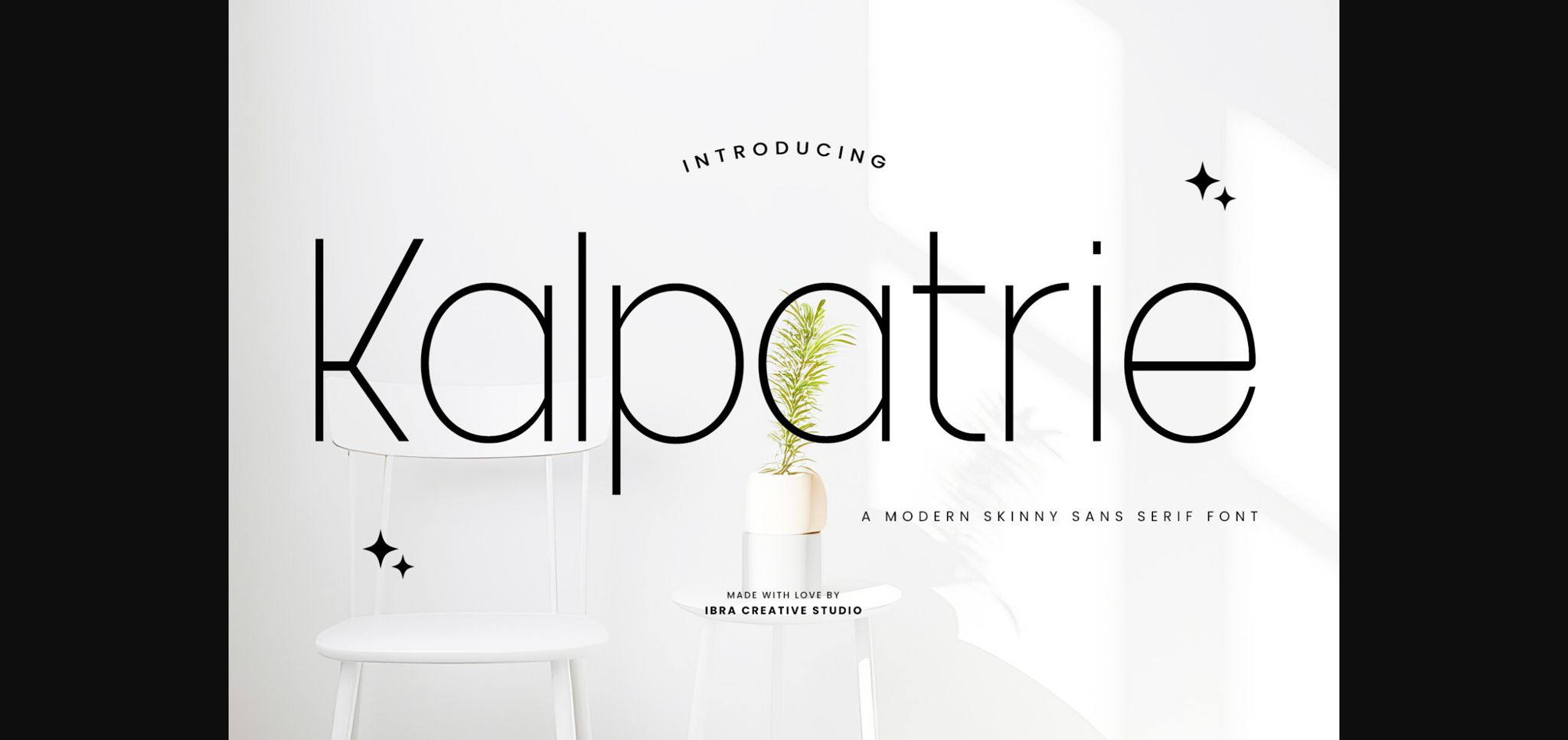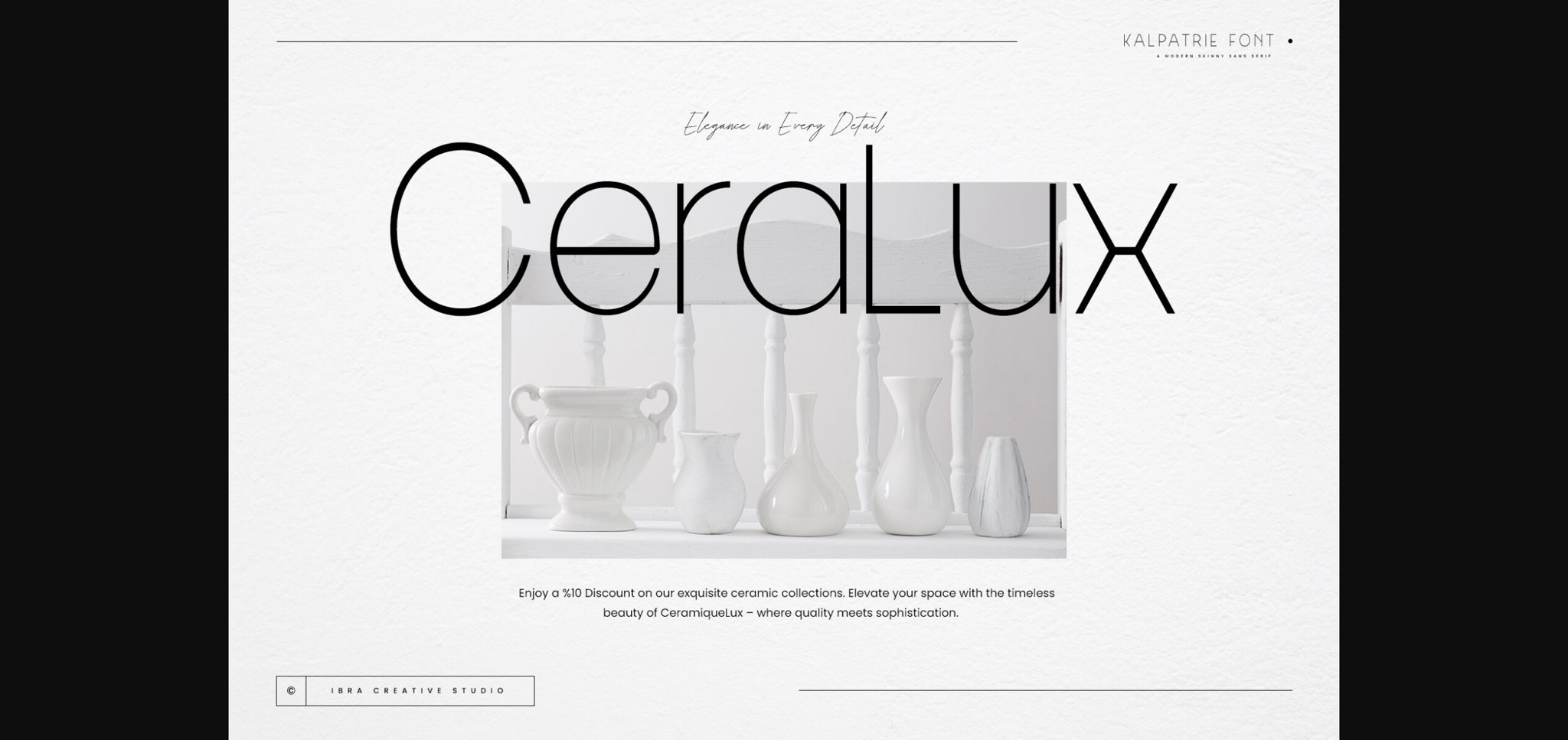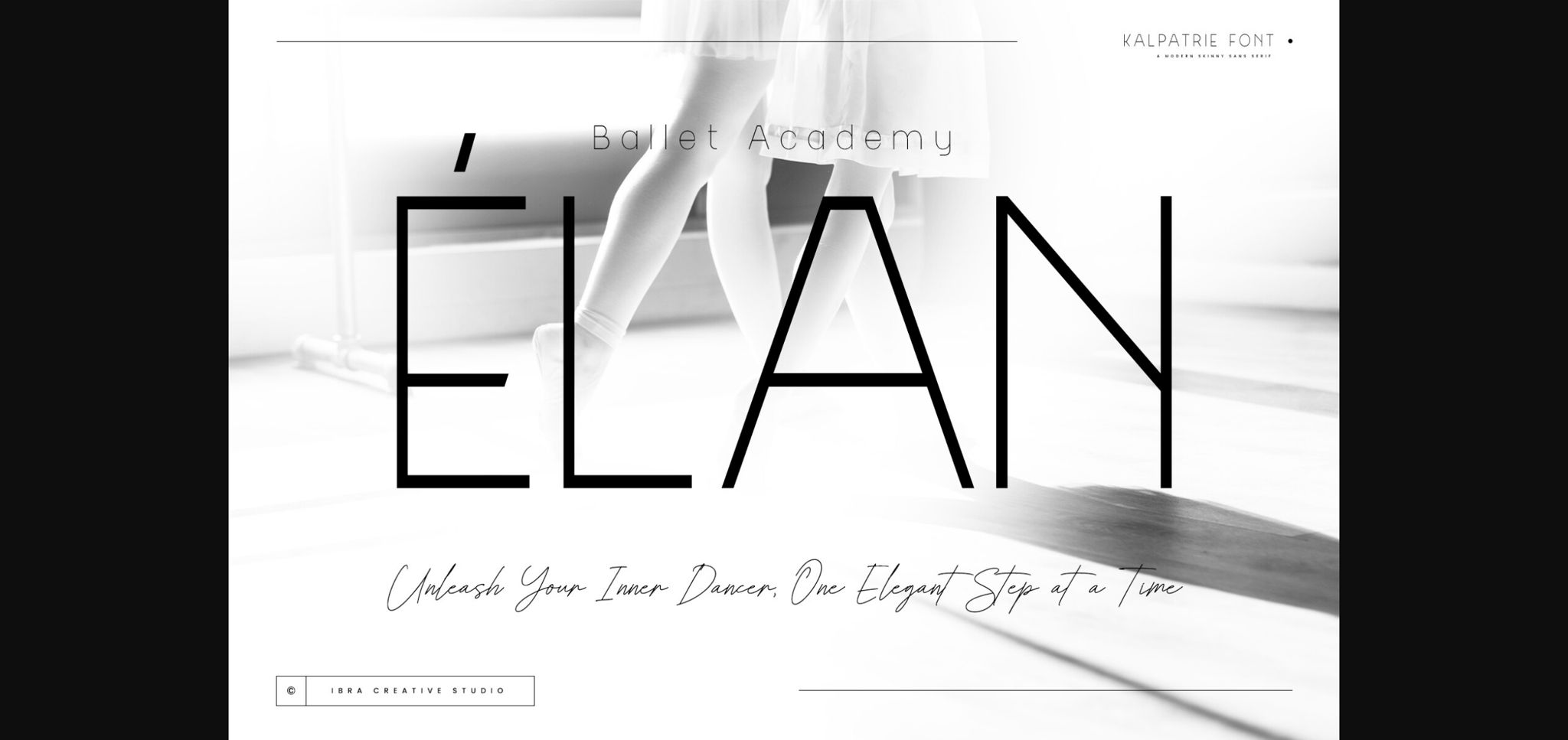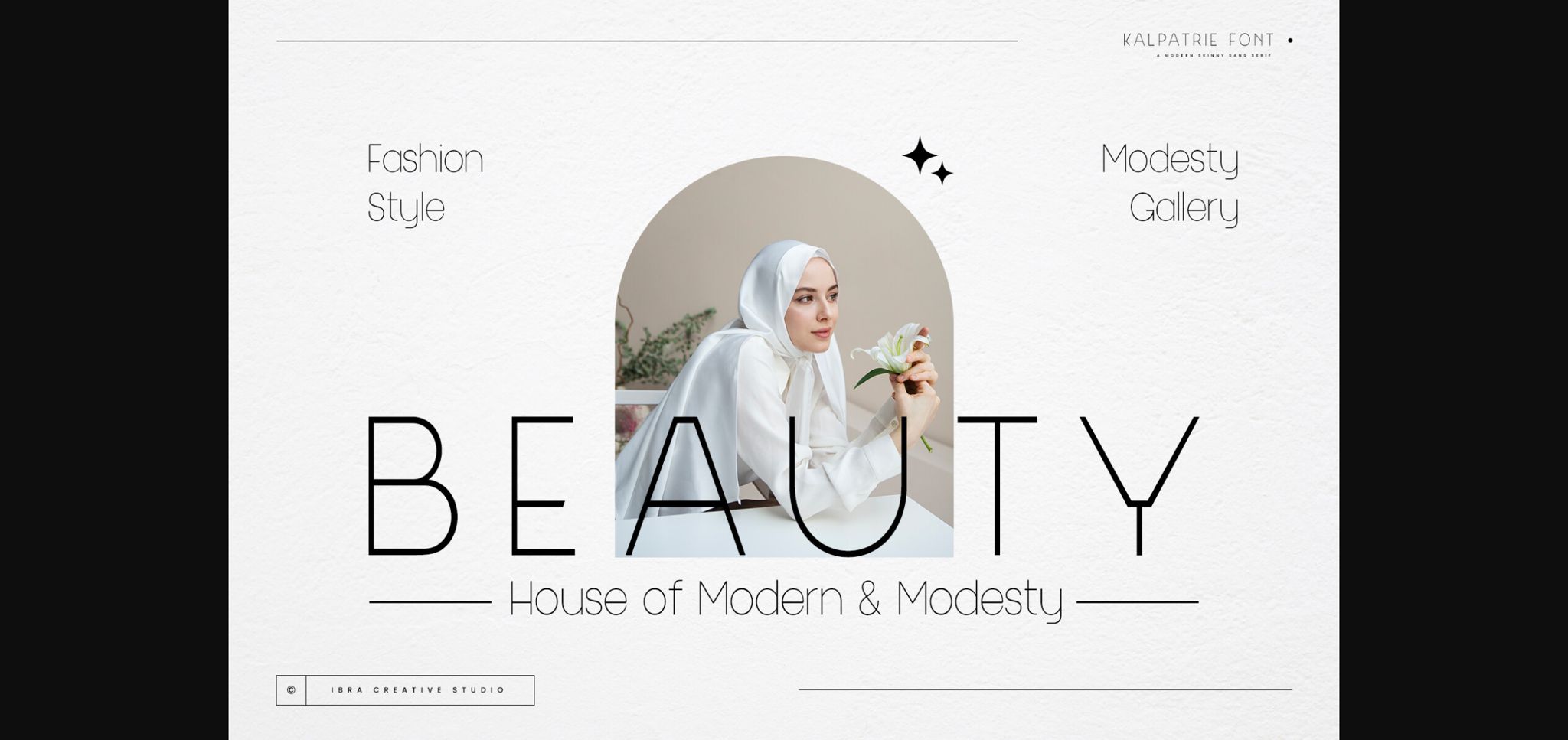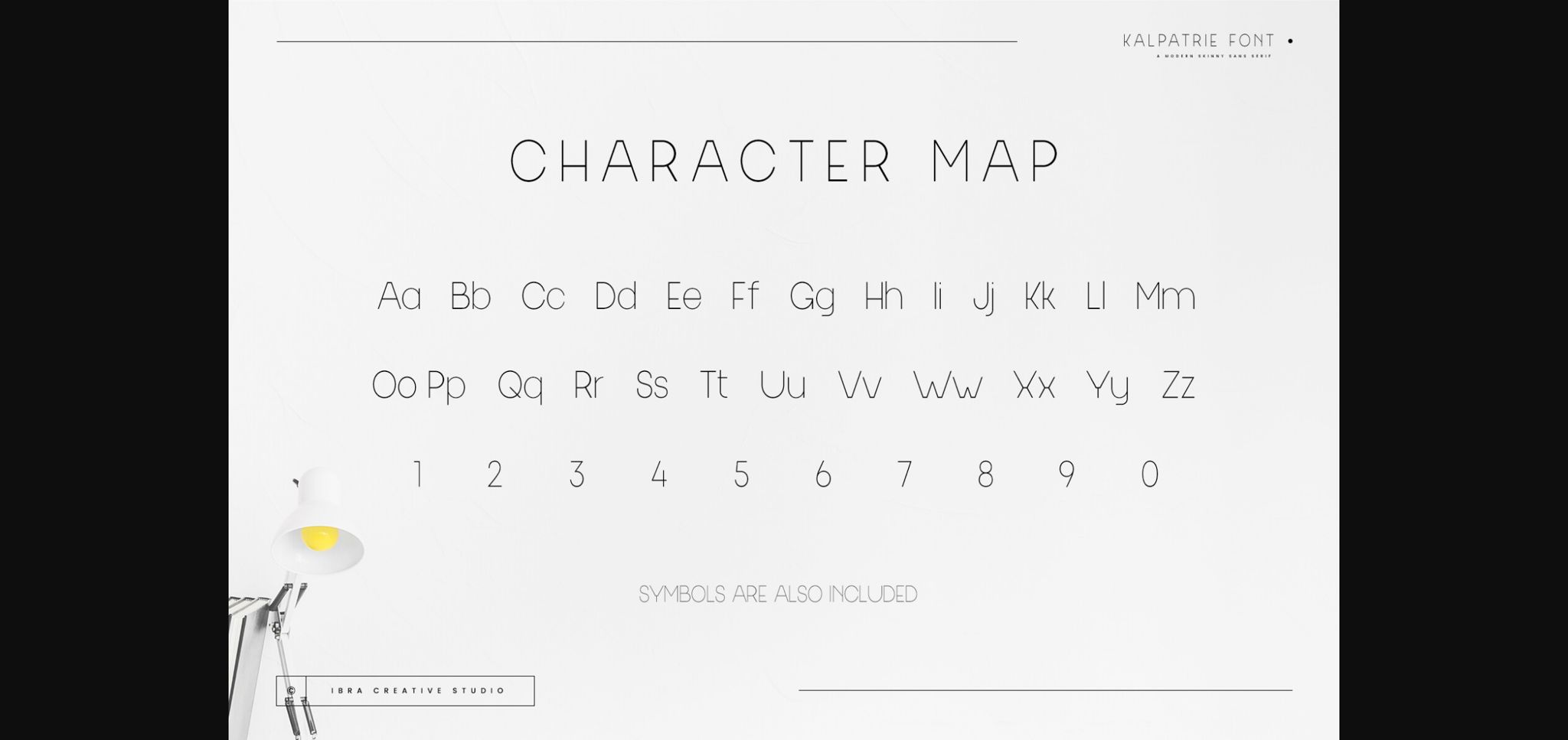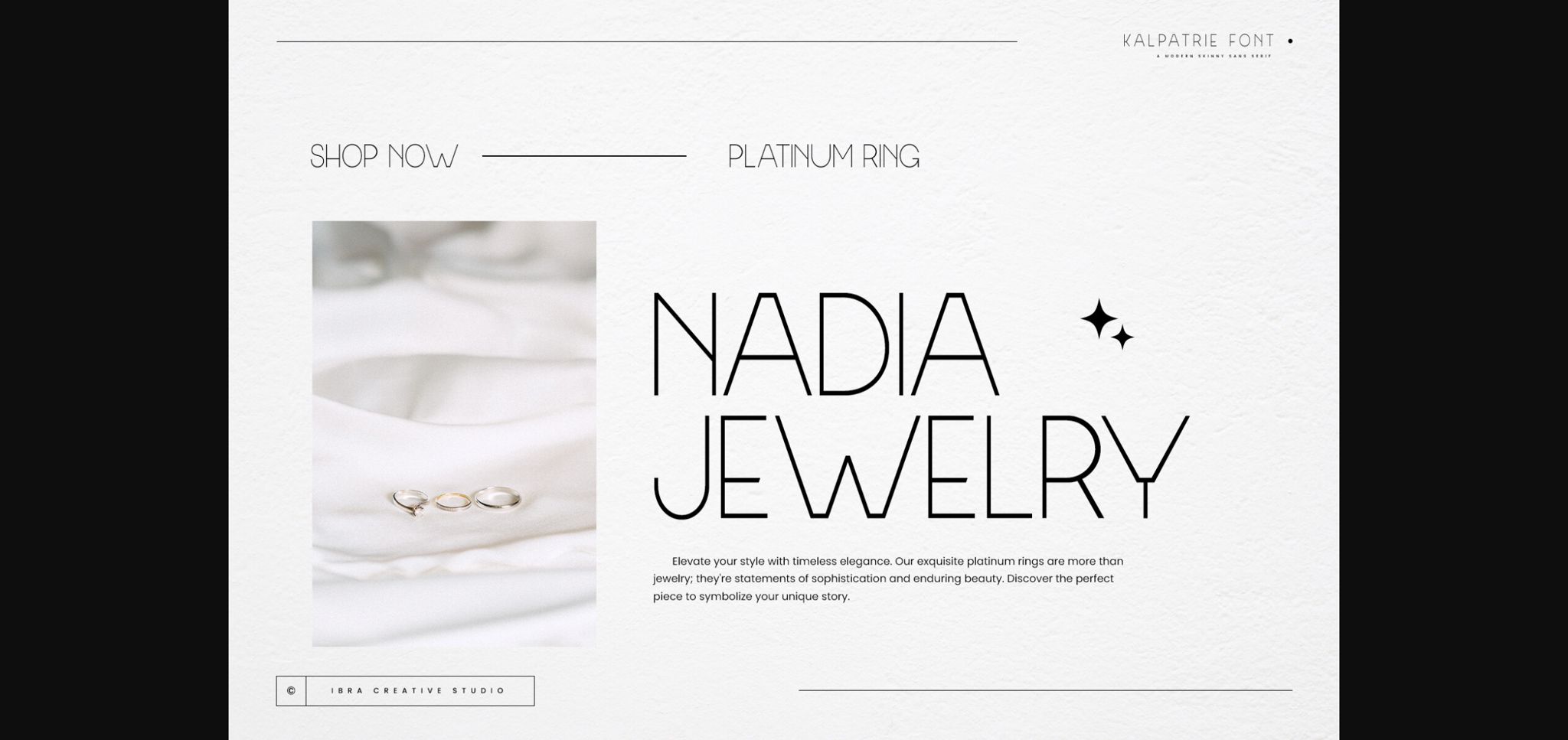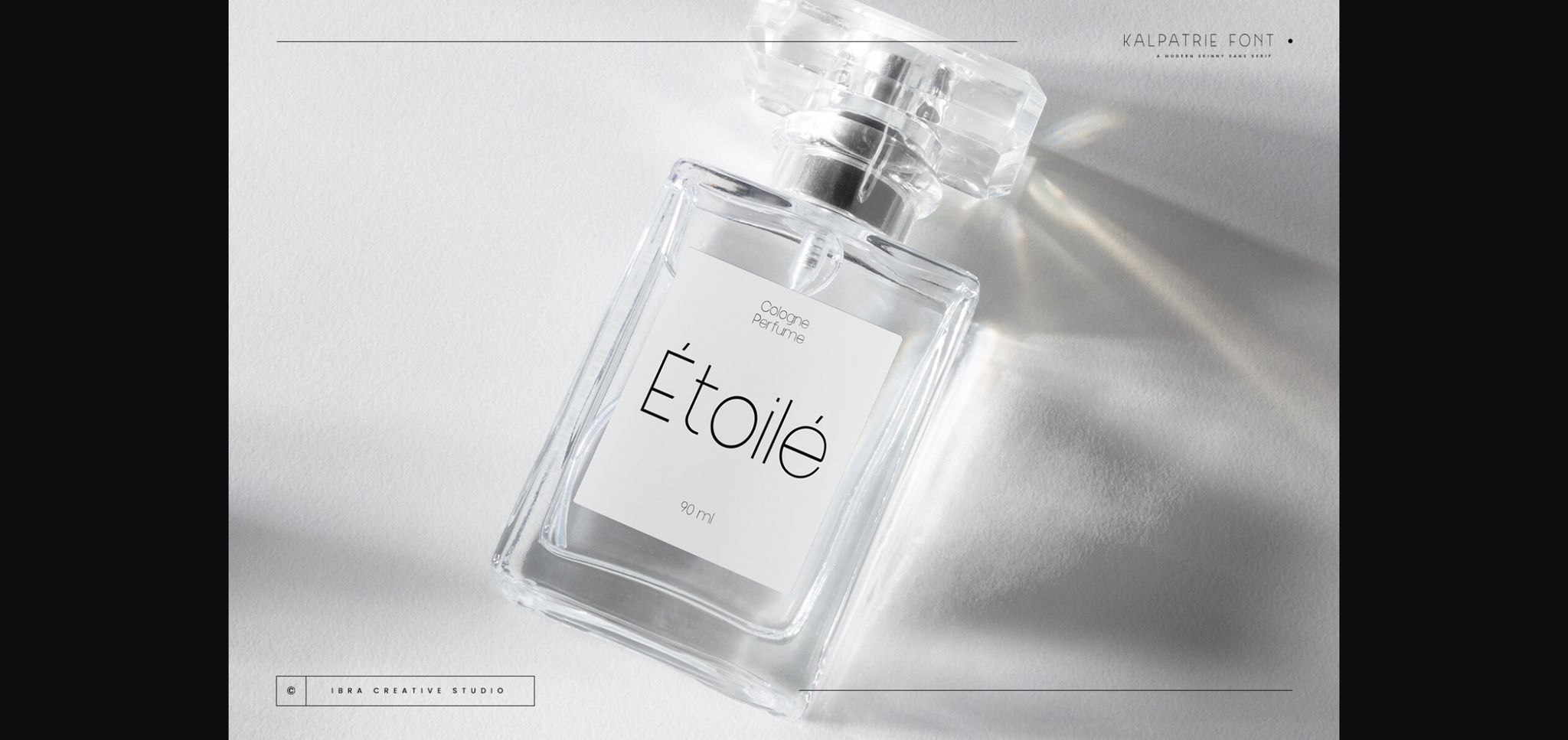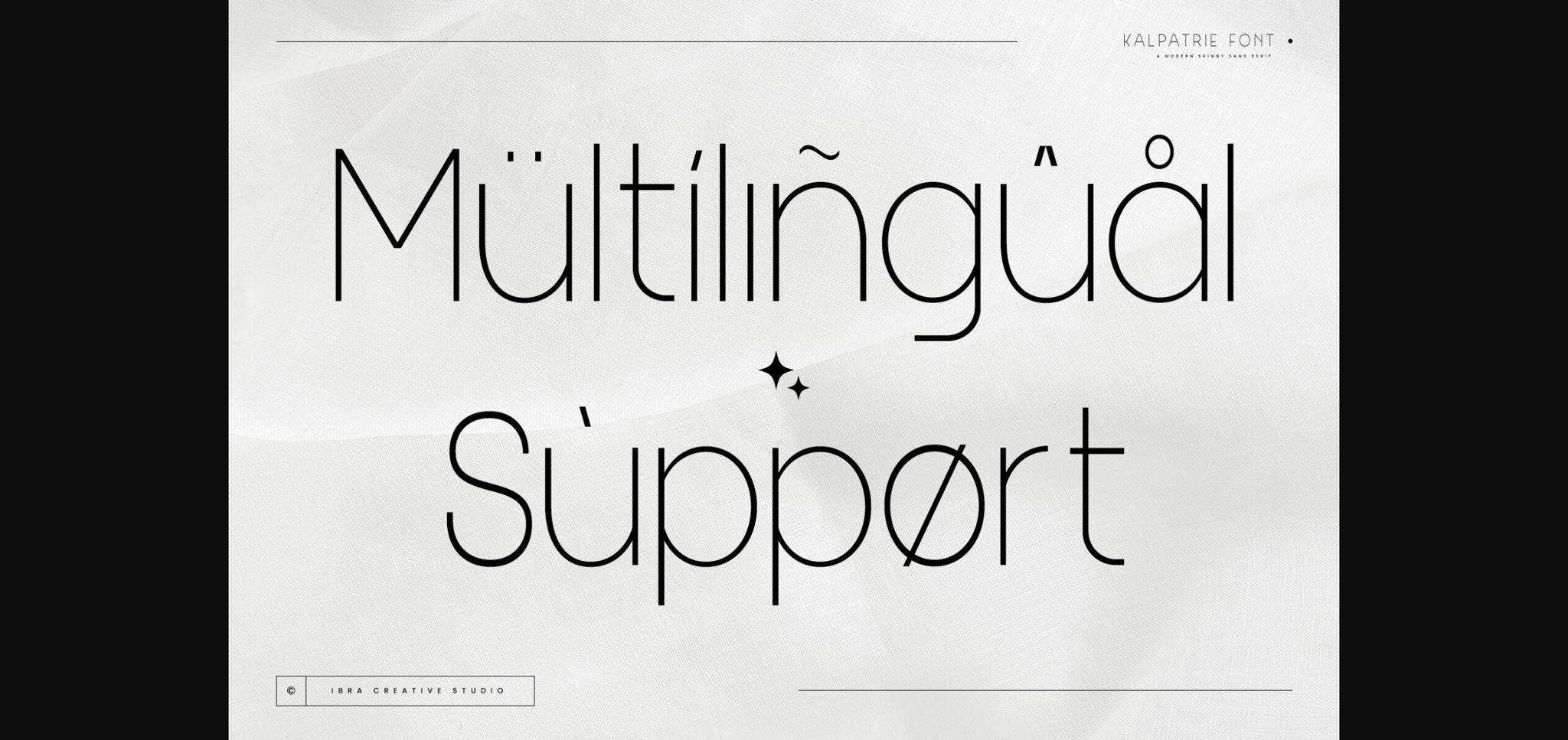
Kalpatrie Font
About Kalpatrie Font
Kalpatrie, a modern and sleek sans-serif font, epitomizes contemporary design with its clean lines and minimalist aesthetic. The typeface’s slender and sophisticated letterforms convey a sense of elegance and versatility, making it an ideal choice for a wide range of design applications. The uniform stroke widths and well-balanced proportions of Kalpatrie create a harmonious and polished look, ensuring readability while exuding a sense of modernity.